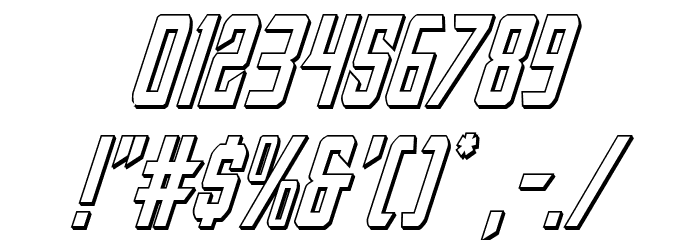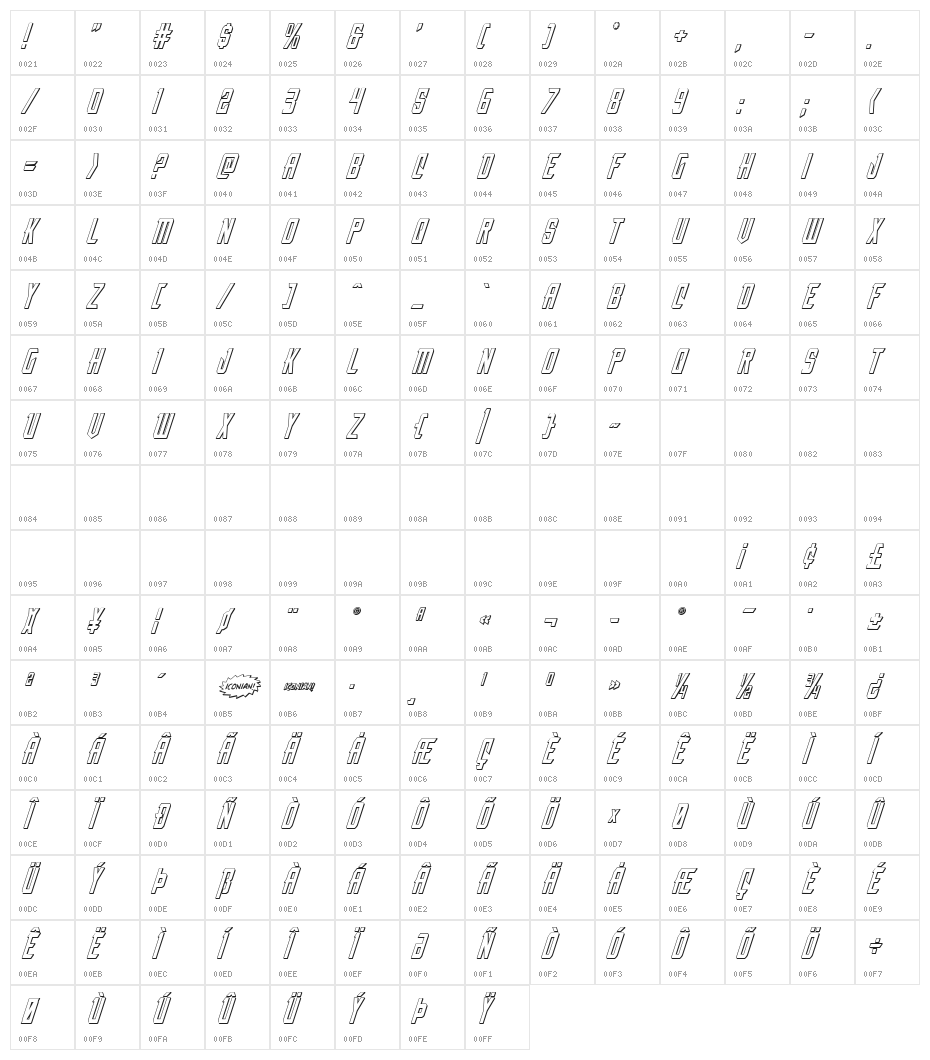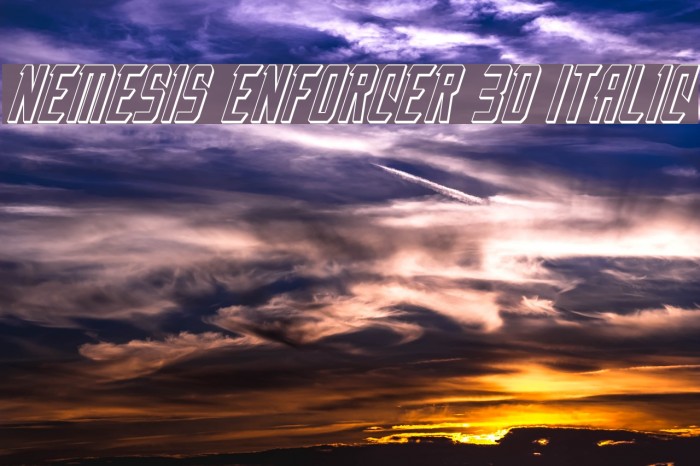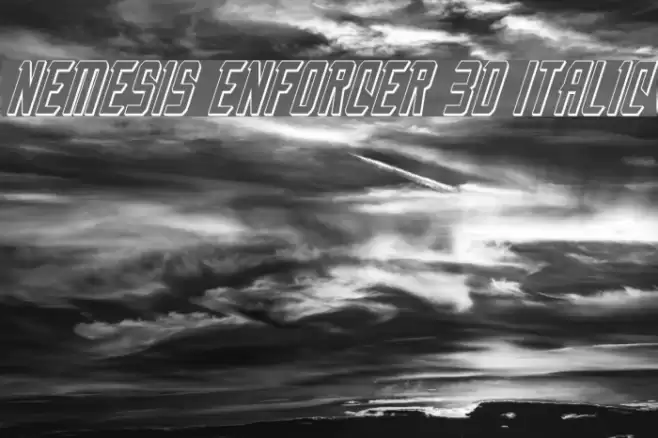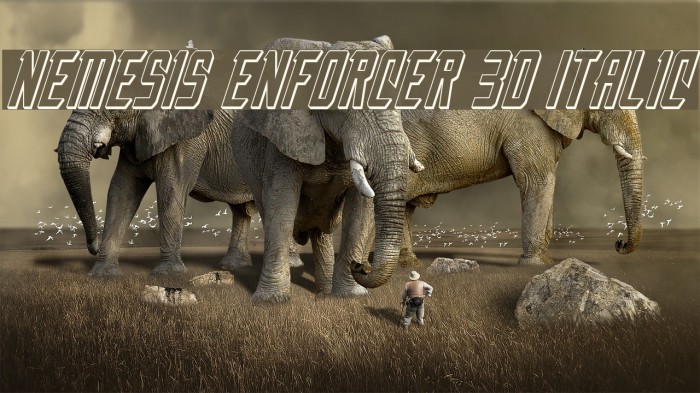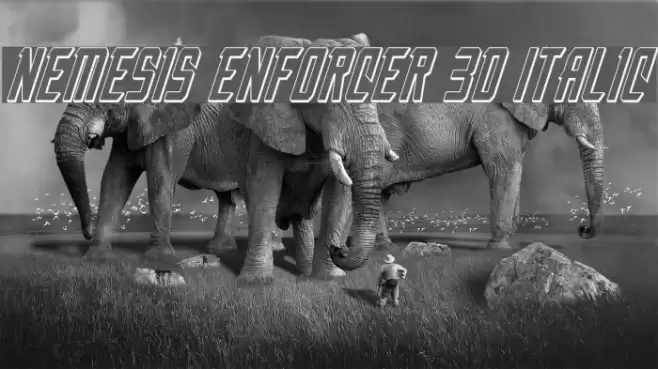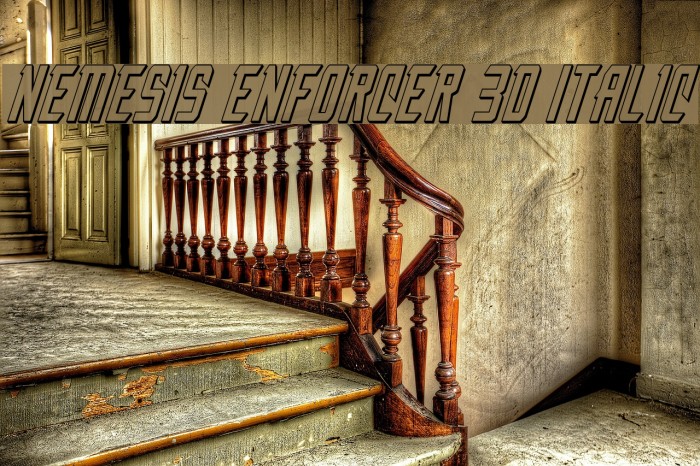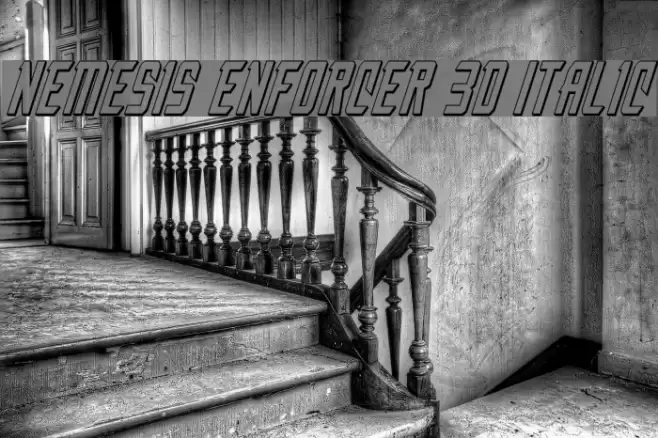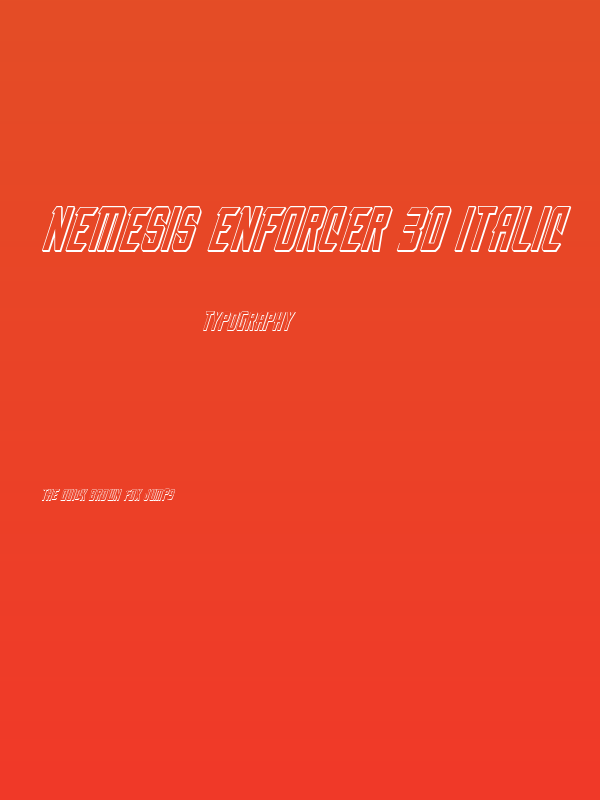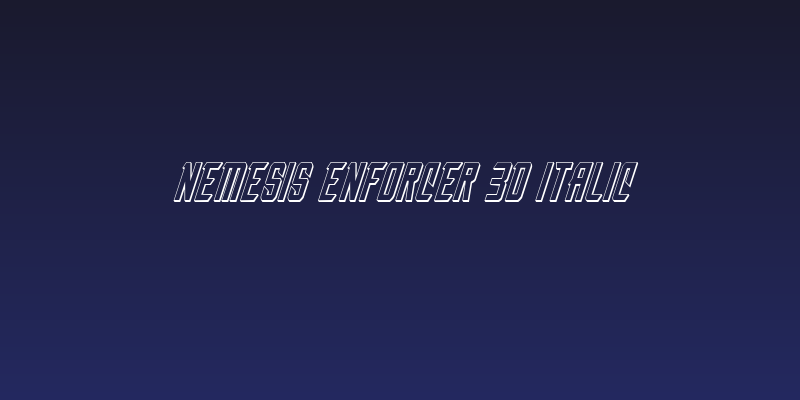
Nemesis Enforcer 3D Italic Font
| Рекомендуемые проекты | Ideal for video game titles, movie posters, sports branding, and any project needing a bold, modern look. |